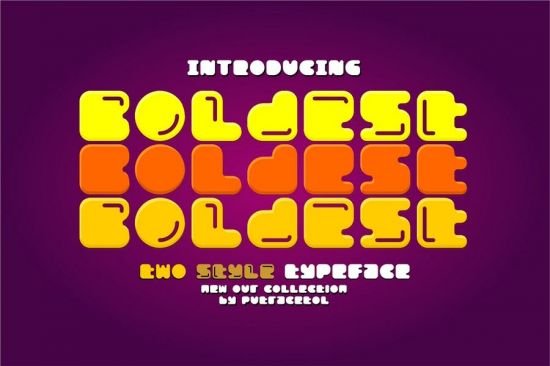
** Boldest **
Introducing Boldest - fun display font, a font with a fat and unique shape. there are two styles - standard and decorative. Come with open type feature with a lot of alternates, its help you to make great lettering. Best uses for wedding invitation, invitations, signature, typography lettering, branding, label, poster, logos, quotes, product packaging, header, merchandise, social media & greeting cards and many more.